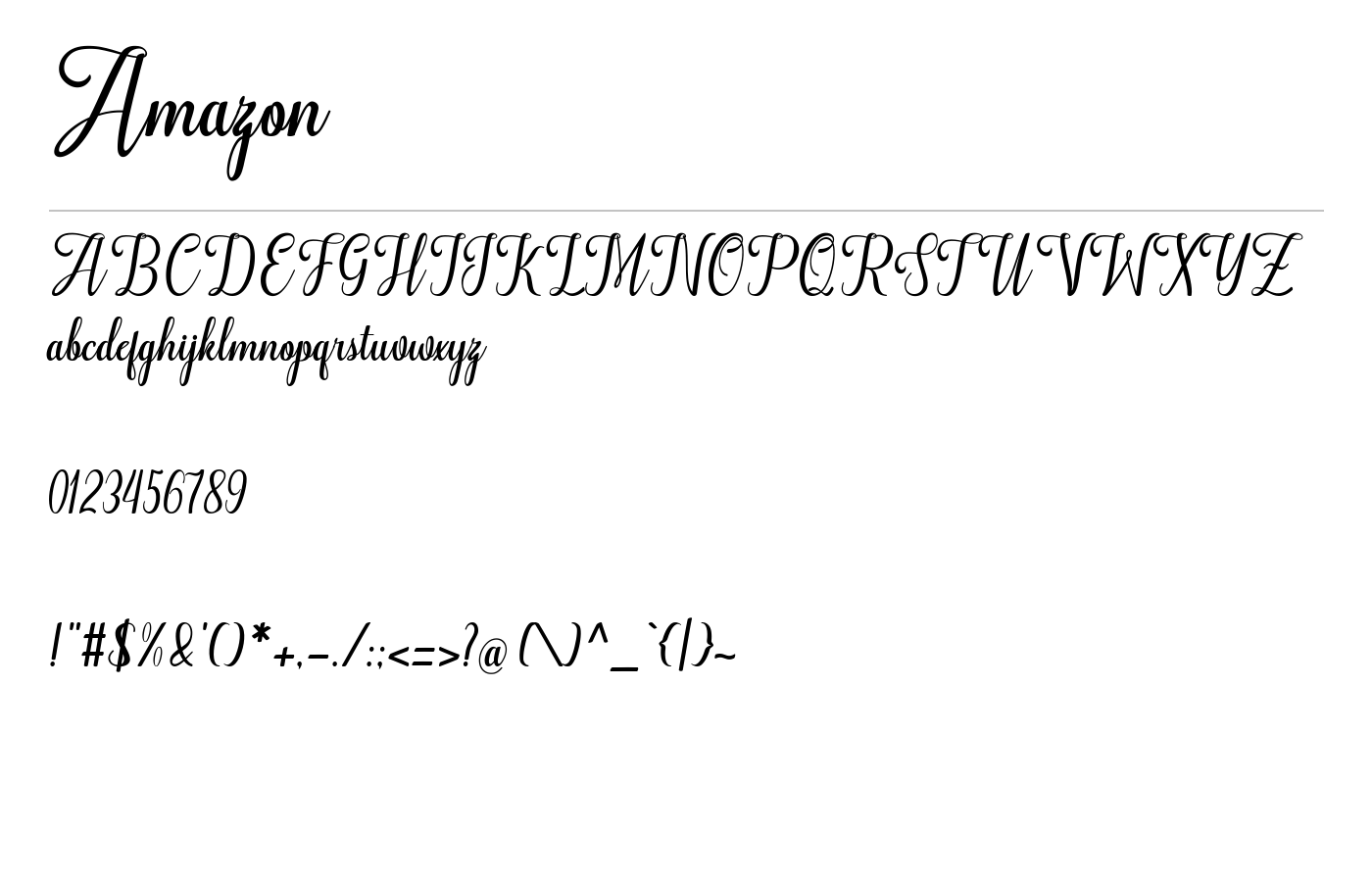
Amazon Font is a graceful script typeface with elegant, flowing strokes and a high contrast between thick and thin lines that give it a sophisticated, handwritten feel. Its slender, upright letterforms and delicate curves make it ideal for stylish branding, invitations, and decorative headlines where a touch of refinement and personality is desired. This font works beautifully in contexts that call for elegance and charm, such as luxury packaging or fashion-related designs.
Amazon Font